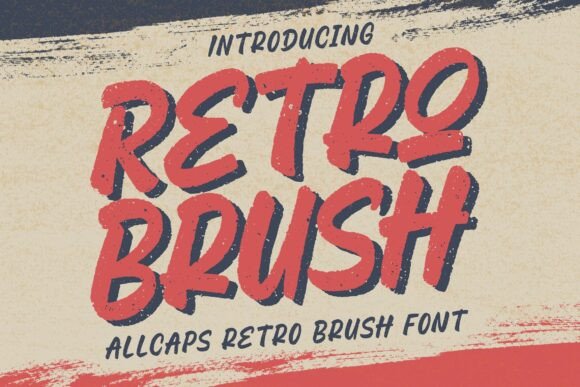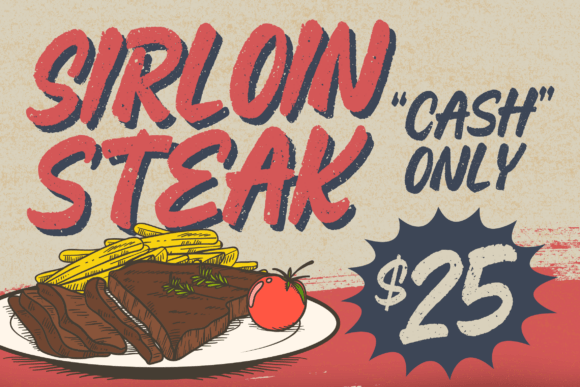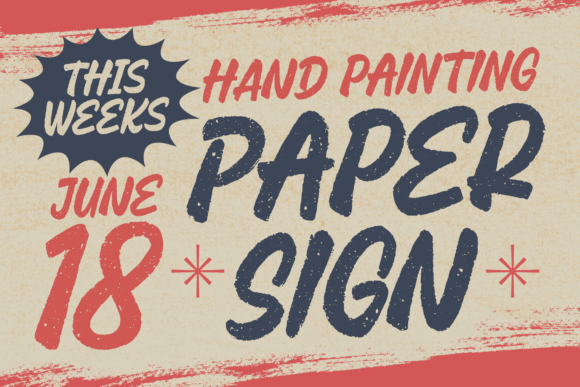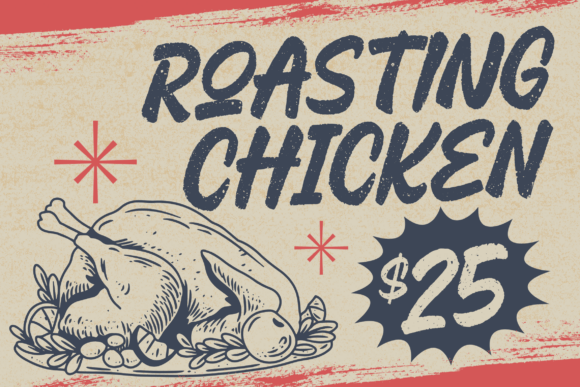
Retro Brush Font
About the Retro Brush Font
Introducing the Retro Brush Font, a beautifully crafted typeface designed to elevate your creative projects. Retro Brush Font is made for any professional project branding, such as logotypes, watermarks, posters, branding, promotions, product packaging, etc. Every letter has a playful retro-style design.
Retro Brush Font includes a full set of retro uppercase and lowercase letters, numerals, and punctuation. This font has a retro style. See the previews above to get some inspiration on how to use them. Happy designing!
This playful, retro-styled font shines in headlines, short text blocks on posters, and packaging design where its unique character adds a vintage appeal. It works exceptionally well for branding projects aiming for a nostalgic or fun feel, particularly those related to food, entertainment, or vintage-inspired products.
However, Retro Brush Font’s playful nature and relatively thick strokes make it less suitable for body text or UI elements requiring high legibility. Long paragraphs set in this font would be difficult to read.
Pair Retro Brush Font with a clean sans-serif like Montserrat for a balanced contrast, or a more geometric sans-serif like Futura for a modern twist. For a more vintage-inspired look, consider pairing it with a classic serif like Garamond. Avoid pairing it with other highly decorative or script fonts which would create visual clutter.
Retro Brush Font Usage Examples
Retro Brush Font Example